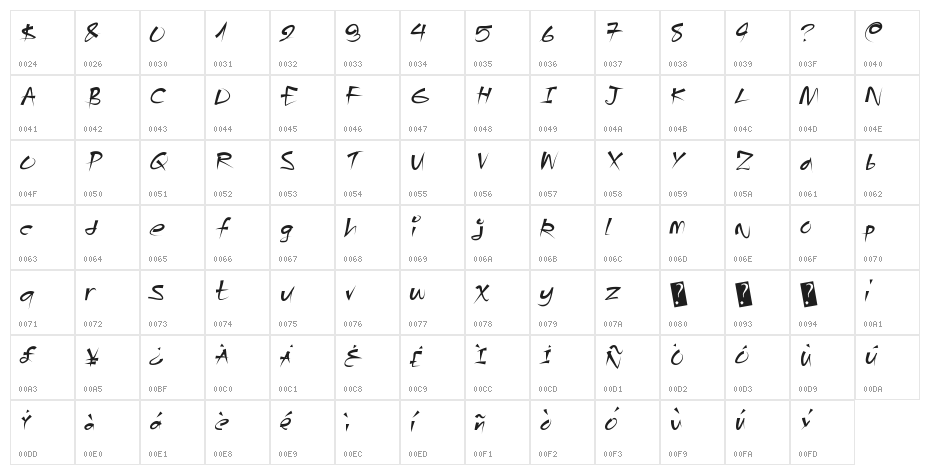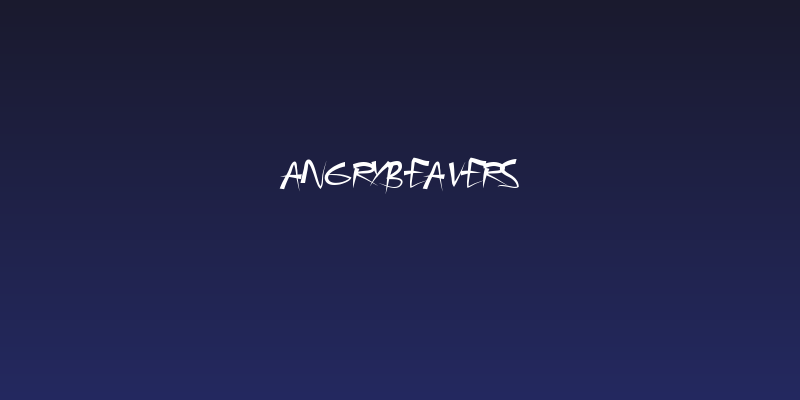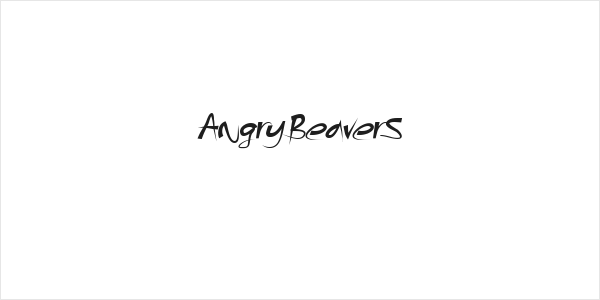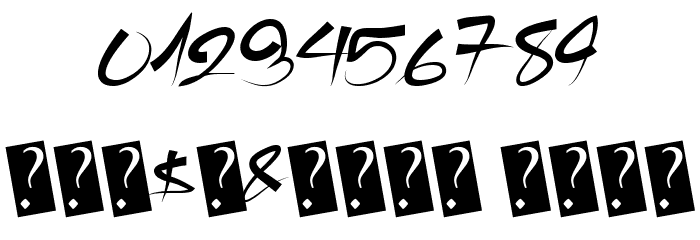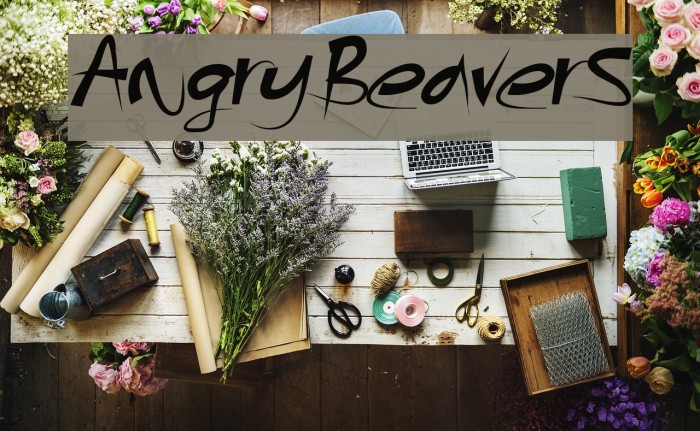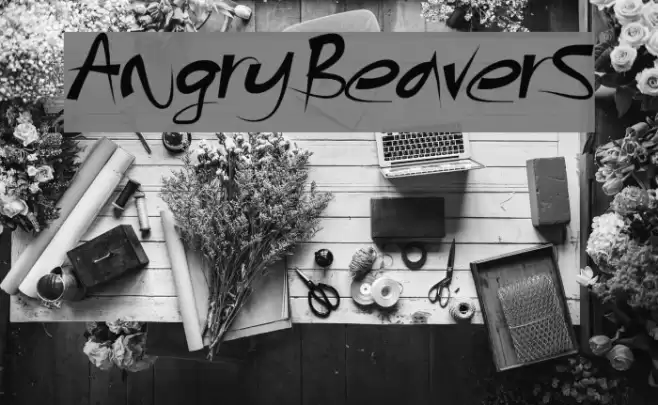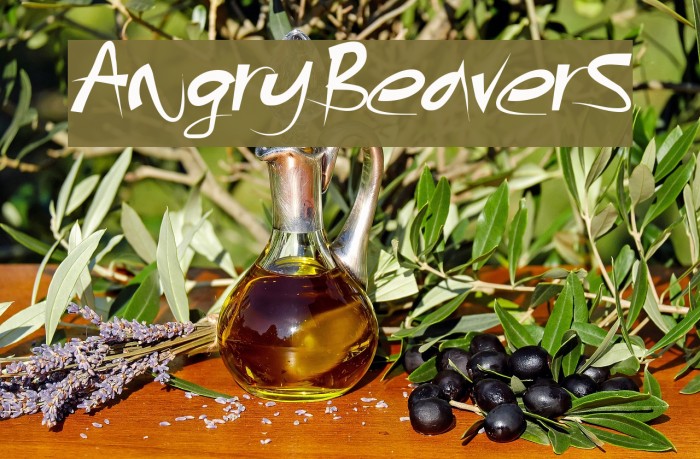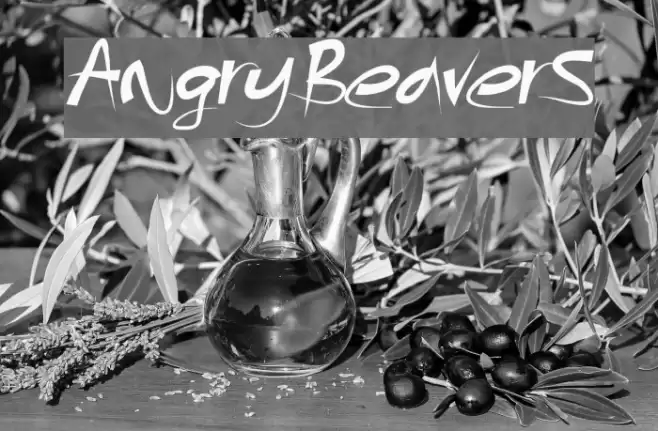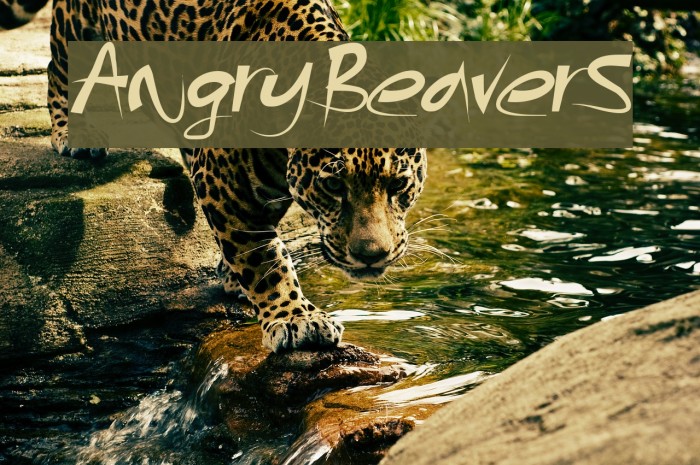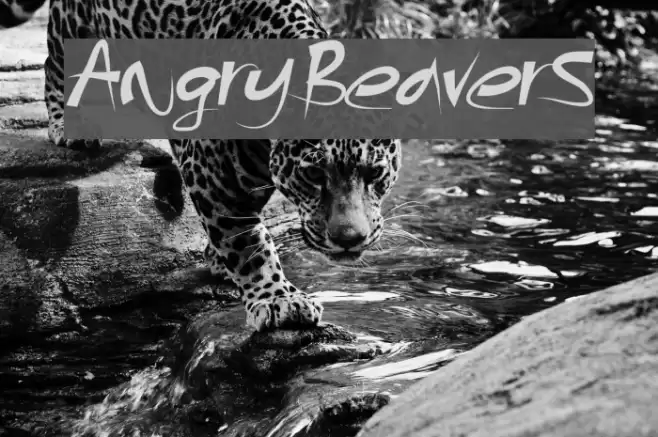
AngryBeavers Font
| Style général | Modern, Edgy |
| Cas d'utilisation | Logos, Posters, Creative Headlines |
| Projets proposés | Ideal for street art-inspired designs, edgy branding, music album covers, and creative posters. |